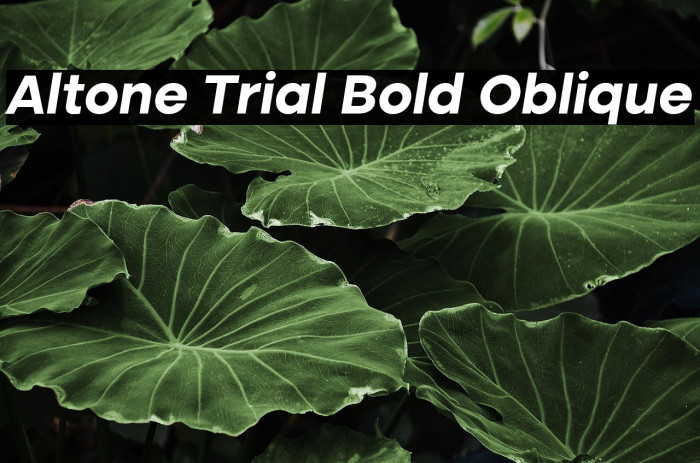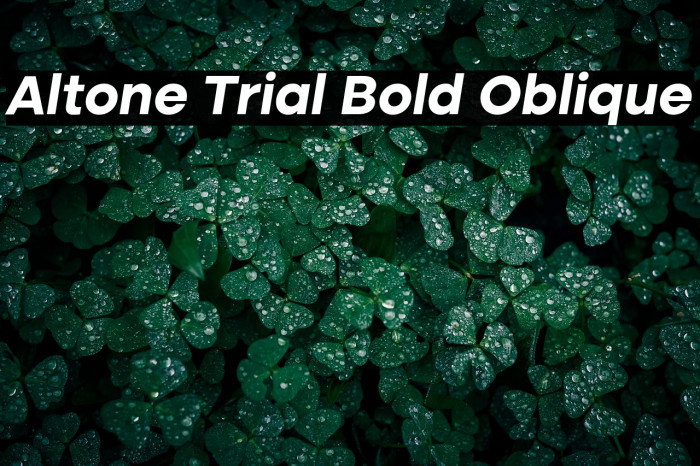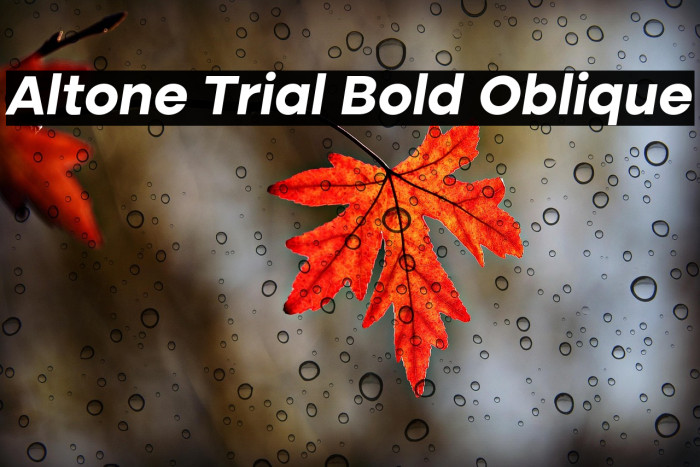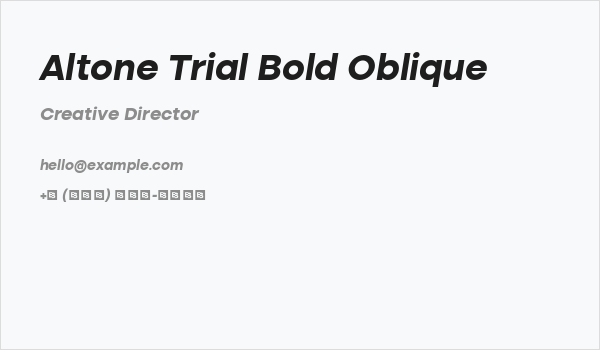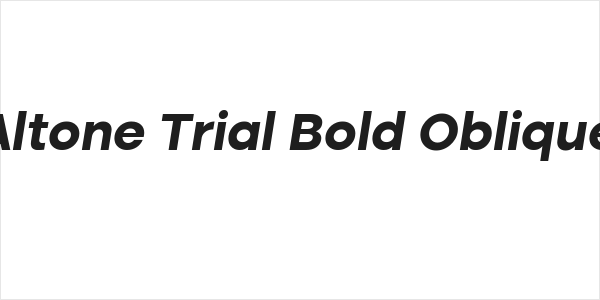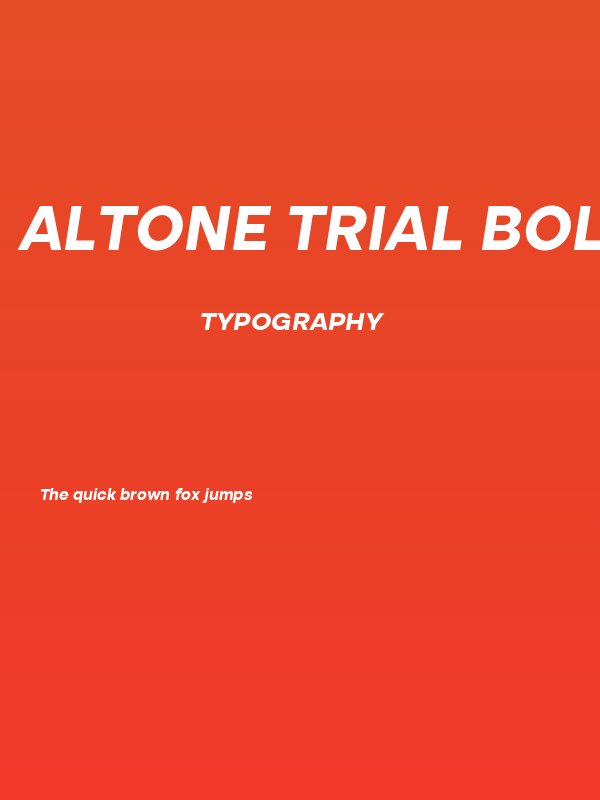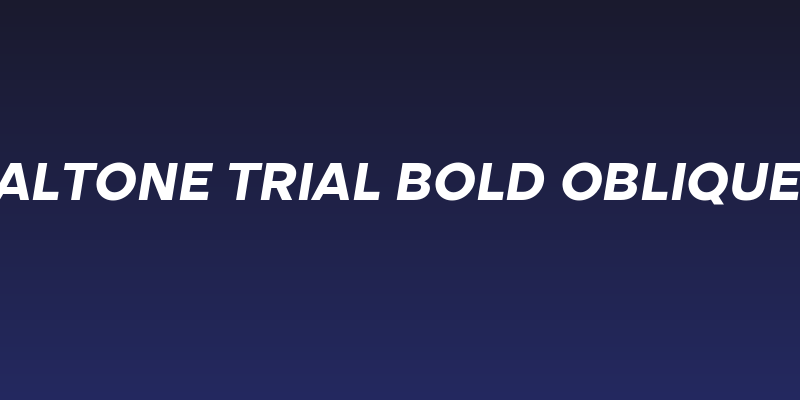
Altone Trial Bold Oblique Font
Altone Trial Bold Oblique Description
This font features a bold and oblique style, characterized by its strong and assertive appearance. The letters are slightly slanted, giving a dynamic and forward-moving impression. The strokes are thick and consistent, providing a sense of stability and confidence. The uppercase and lowercase letters maintain a uniform width, ensuring readability and balance. The numerals and special characters are designed to match the boldness of the alphabet, making them suitable for impactful displays. Overall, this font conveys a modern and professional aesthetic.
| Proposed Projects | Ideal for branding, headlines, posters, and advertising materials where a strong visual impact is desired. |